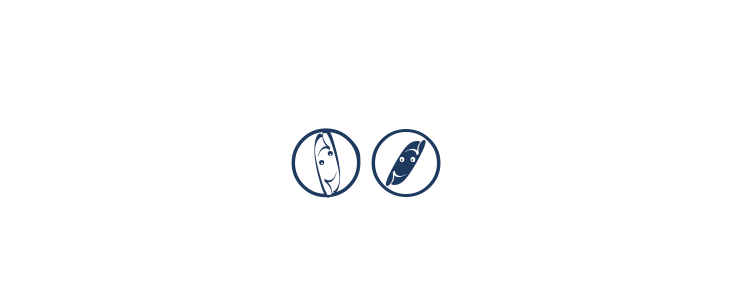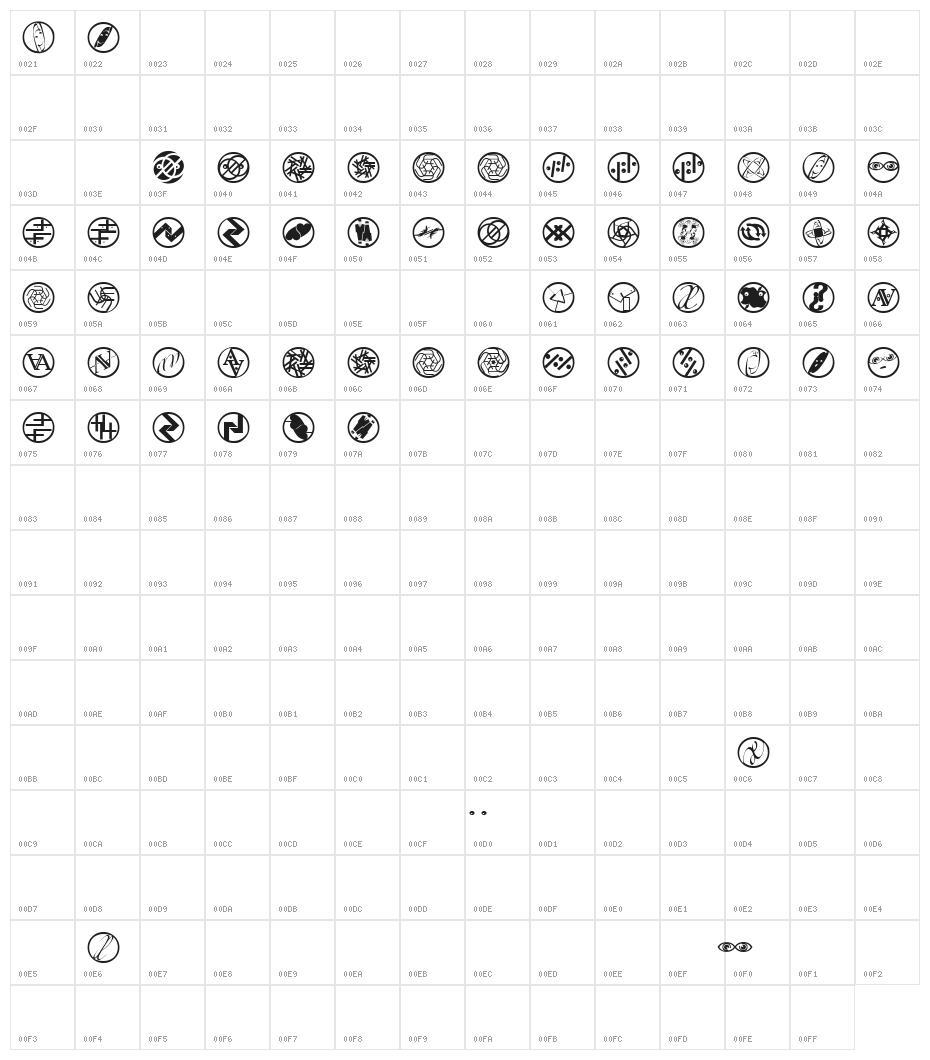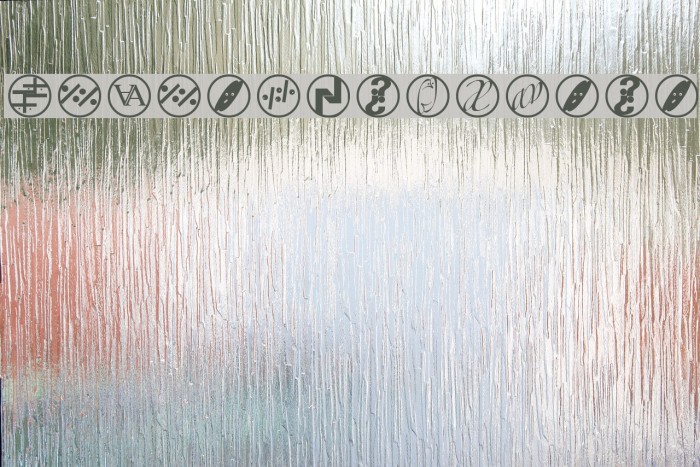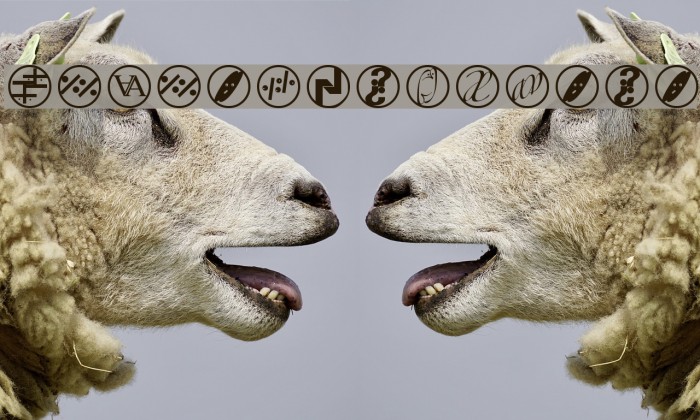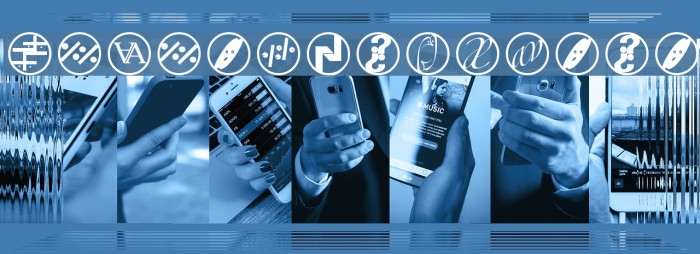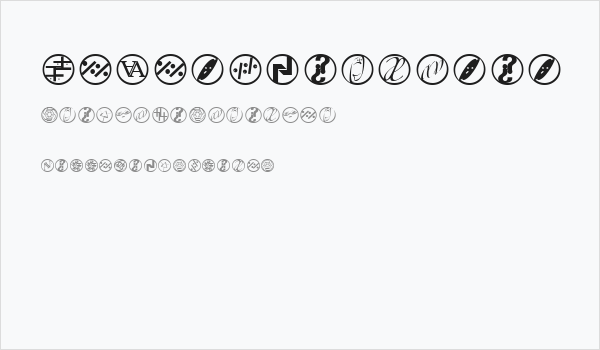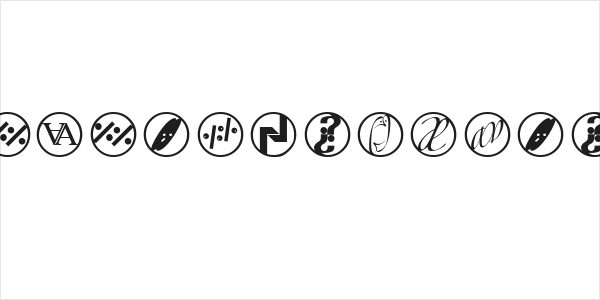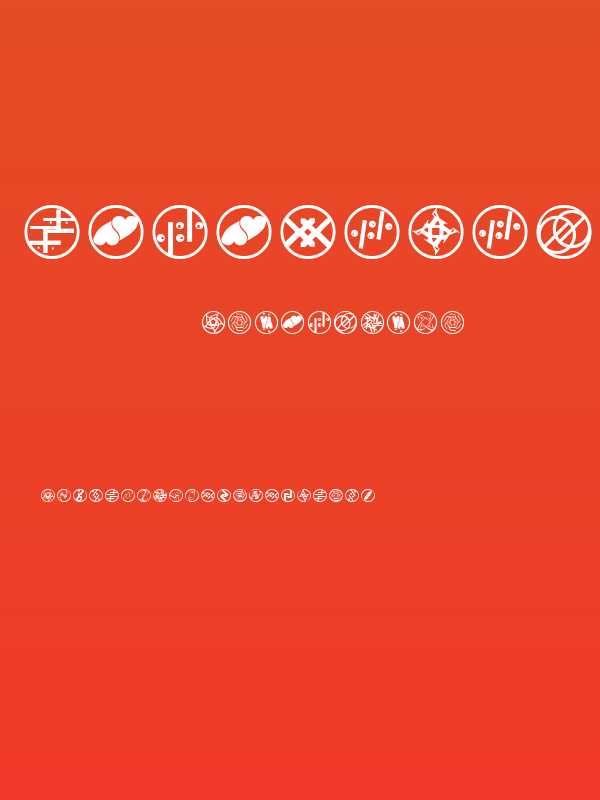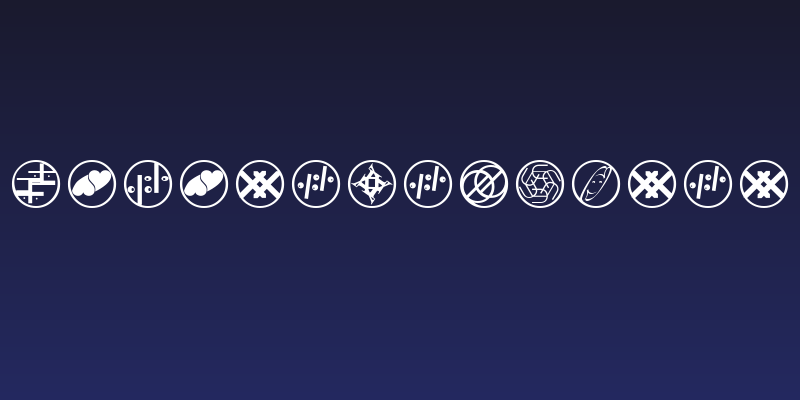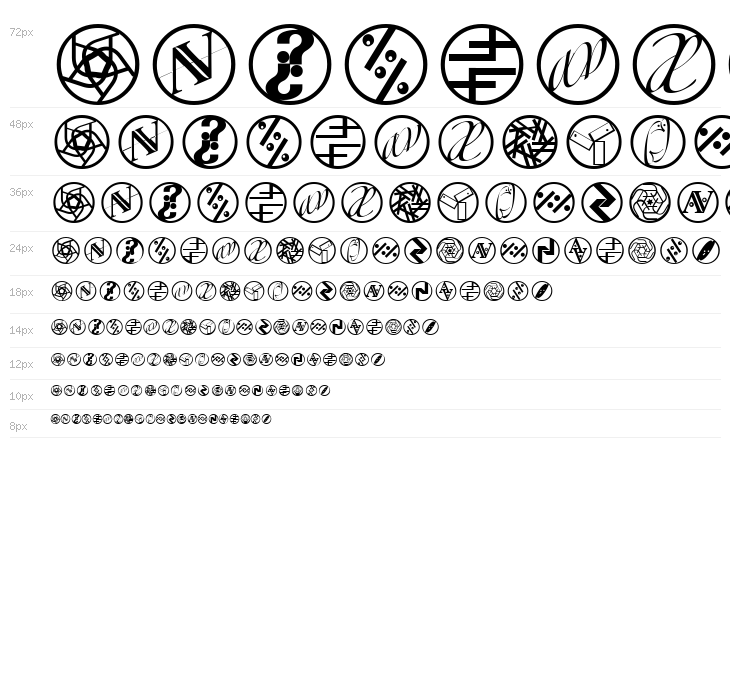
LogosExercises Font
LogosExercises Description
A highly decorative and experimental typeface where each character is enclosed in a circle and stylized with abstract, geometric, or illustrative motifs, making letterforms sometimes only partially recognizable. The design emphasizes creativity and visual play over legibility.
| Overall Style | Decorative, Abstract, Experimental |
| Use Case | Logos, Posters, Artistic Headlines |
| Proposed Projects | Branding for creative agencies, art exhibitions, album covers, avant-garde posters, experimental design projects. |